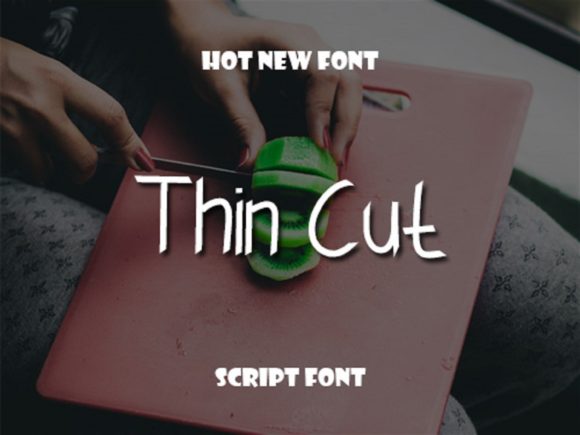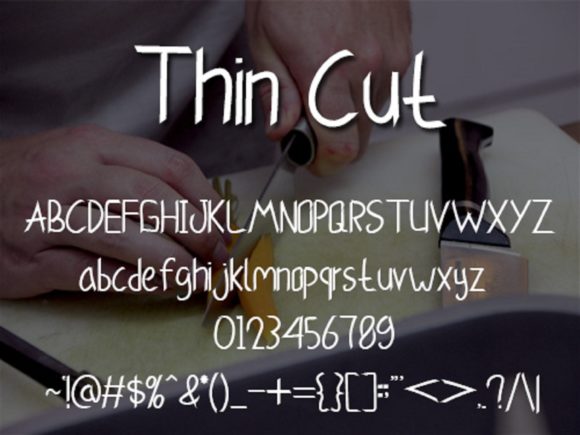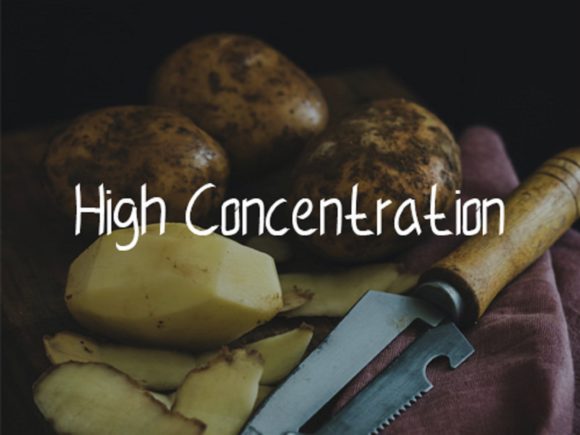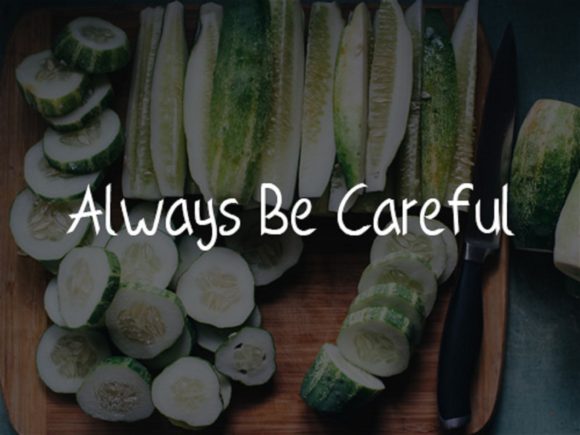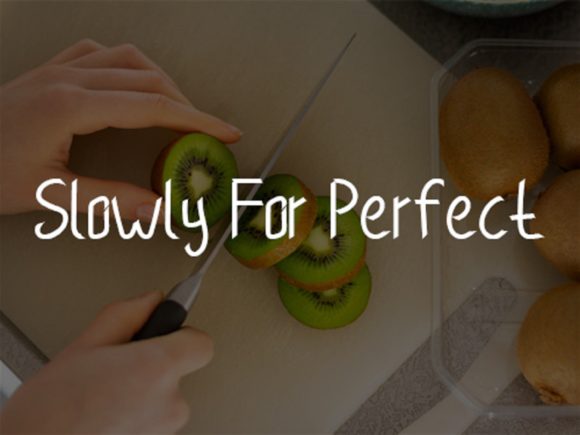
About Thin Cut Font
Thin Cut is a light, simple and uniquely crafter script font. Simple but with a strong visual effect, this font will instantly make your creation more appealing than any others.